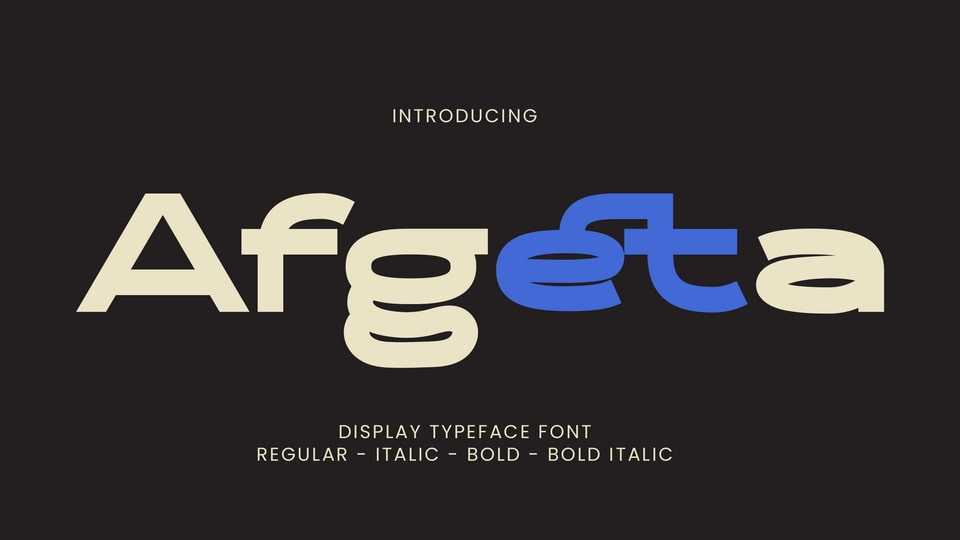
Download Afgeta font, a display sans serif typeface inspired by futuristic, clean, sporty, and minimalist design styles. Afgeta is crafted to bring a sharp and elegant modern touch to any of your creative projects.
Designer: Rvandtype Studio